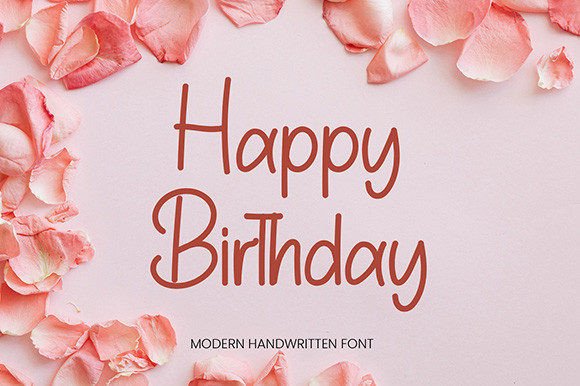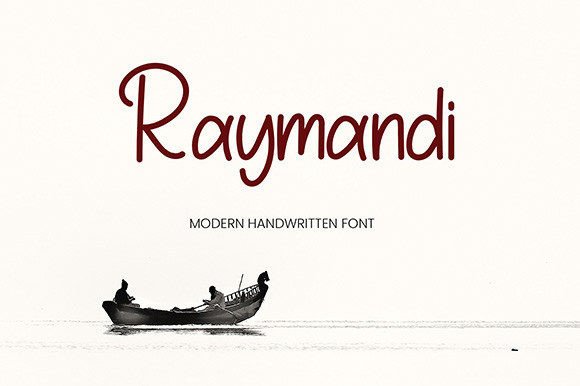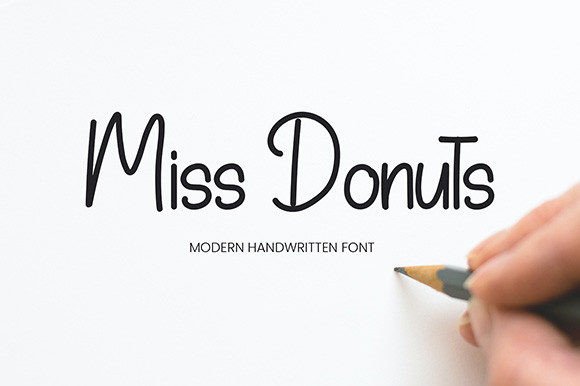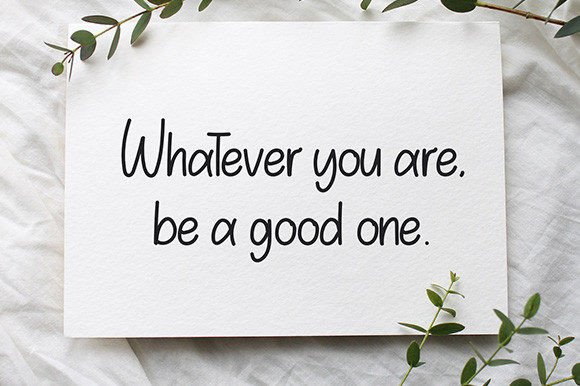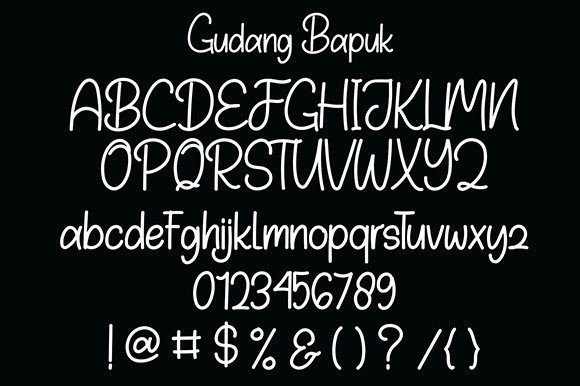
Gudang Bapuk Font: Elevate Your Designs with a Unique Script Style
In the world of typography, a new font has emerged to capture the attention of designers and crafters alike. Introducing Gudang Bapuk, a script font with a fresh and modern style that’s perfect for a wide range of projects. Whether you’re looking to create stunning quotes, logos, blog headers, posters, ribbons, fashion designs, clothing labels, letters, invitations, or stationery, Gudang Bapuk is the ideal choice.
What is Gudang Bapuk Font?
Gudang Bapuk is a script font that boasts a unique and stylish design. Its distinctive characters and flowing lines make it an excellent option for designers seeking to add a touch of elegance and sophistication to their work. This font is carefully crafted to ensure that it stands out from the crowd, providing a fresh alternative to traditional script fonts.
Key Features of Gudang Bapuk Font
- Unique Style: Gudang Bapuk features a new and innovative style that sets it apart from other script fonts.
- Versatility: This font is suitable for a wide range of projects, including quotes, logos, blog headers, posters, ribbons, fashion designs, clothing labels, letters, invitations, and stationery.
- Elegant and Sophisticated: Gudang Bapuk’s flowing lines and distinctive characters give it an air of elegance and sophistication, making it perfect for designs that require a touch of refinement.
Use Cases for Gudang Bapuk Font
Gudang Bapuk’s versatility makes it an excellent choice for various design projects. Here are some use cases where this font truly shines:
- Quotes: Add a touch of elegance to your quotes with Gudang Bapuk’s flowing script.
- Logos: Create a memorable logo for your brand with this unique font.
- Blog Headers: Elevate your blog’s header with a stylish and modern font.
- Posters: Make your posters stand out with Gudang Bapuk’s bold and eye-catching script.
- Ribbons: Add a touch of sophistication to your ribbons with this elegant font.
- Fashion and Clothing: Use Gudang Bapuk to create stunning fashion designs, clothing labels, and brand identities.
- Letters and Invitations: Add a touch of elegance to your letters and invitations with this beautiful script font.
- Stationery: Create stylish and modern stationery with Gudang Bapuk.
Why Choose Gudang Bapuk Font?
With so many fonts available, why choose Gudang Bapuk? Here are a few reasons why designers and crafters are drawn to this unique script font:
- Uniqueness: Gudang Bapuk’s distinctive style sets it apart from other fonts, ensuring your designs stand out.
- Versatility: This font is suitable for a wide range of projects, making it a valuable addition to your font collection.
- Elegance: Gudang Bapuk’s flowing lines and elegant characters add a touch of sophistication to any design.
In conclusion, Gudang Bapuk is a script font that offers a fresh and modern style, perfect for designers and crafters looking to elevate their designs. Its versatility, elegance, and uniqueness make it an excellent choice for a wide range of projects. Whether you’re creating quotes, logos, blog headers, posters, ribbons, fashion designs, clothing labels, letters, invitations, or stationery, Gudang Bapuk is sure to impress. Add this beautiful font to your collection today and take your designs to the next level.